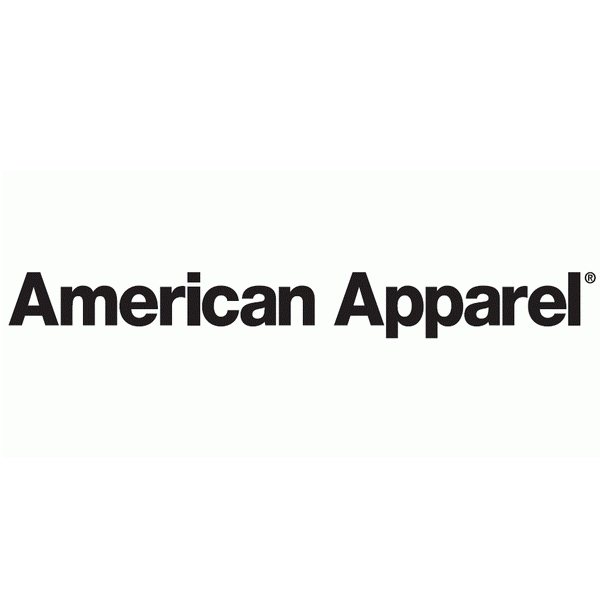
American Apparel Font
ApparelAmerican Apparel was a clothing manufacturer based in Los Angeles, California. It was founded in 1989 by Dov Charney, and it became known for its trendy, casual clothing such as T-shirts, socks, and legwear.
The logo for American Apparel uses the font, Helvetica Black, with narrow spacing. Helvetica is a neo-grotesque style typeface, influenced by Akzidenz-Grotesk, the famous typeface from the 19th century. The font is a commercial one and you can purchase it here.